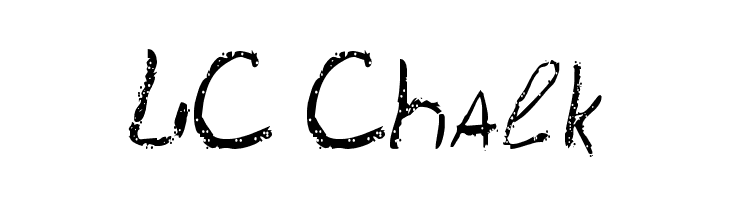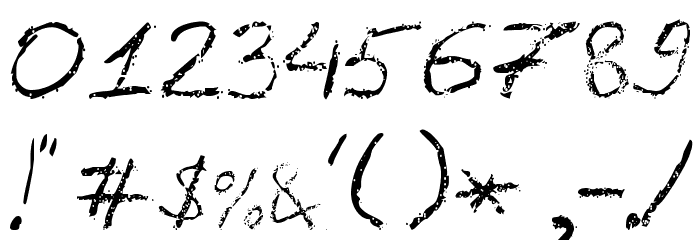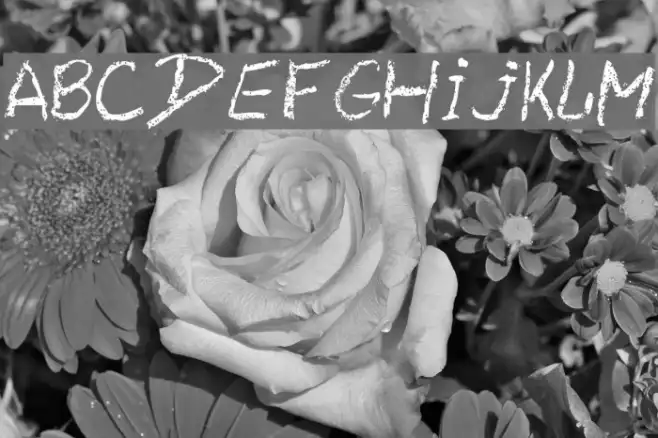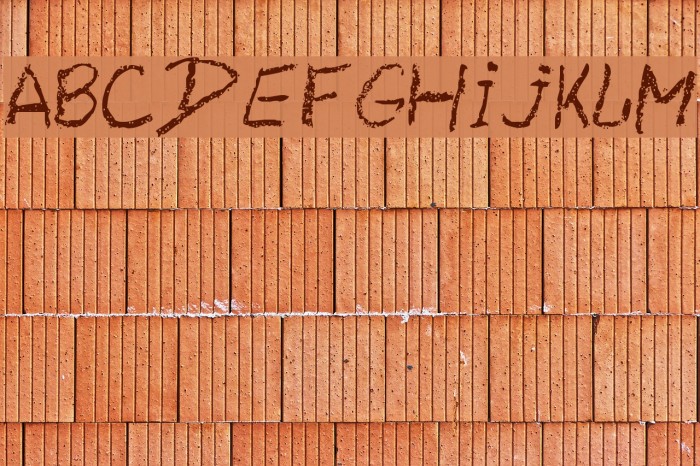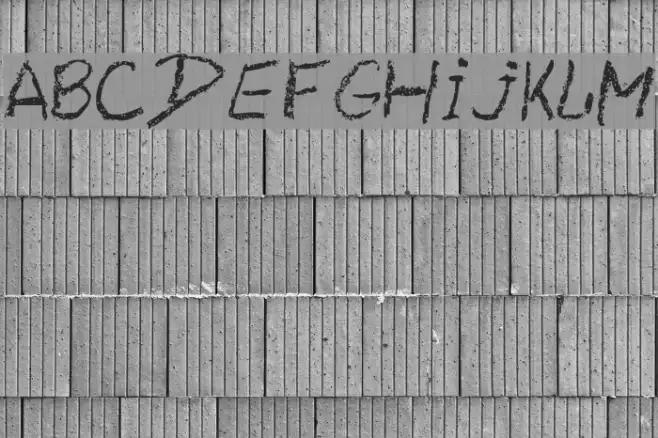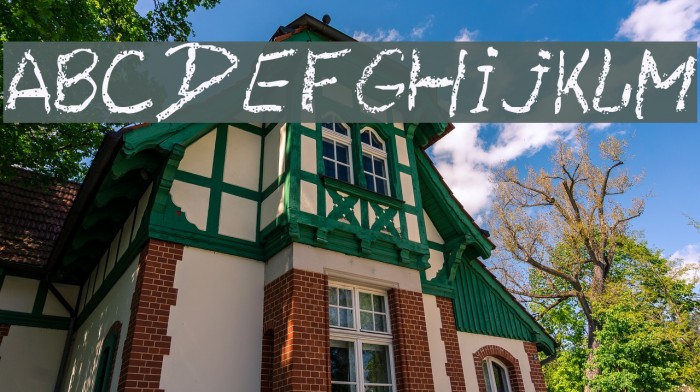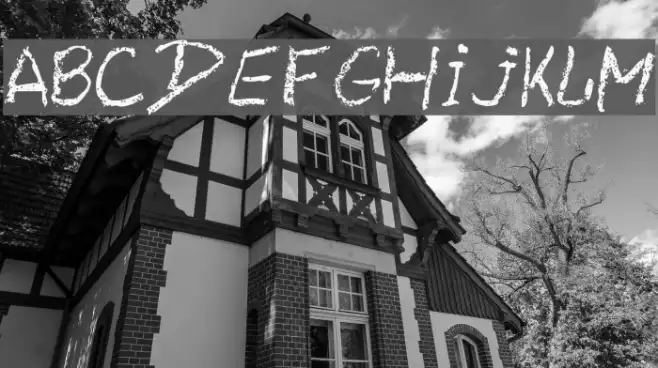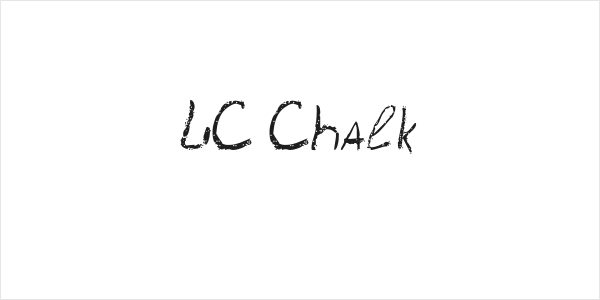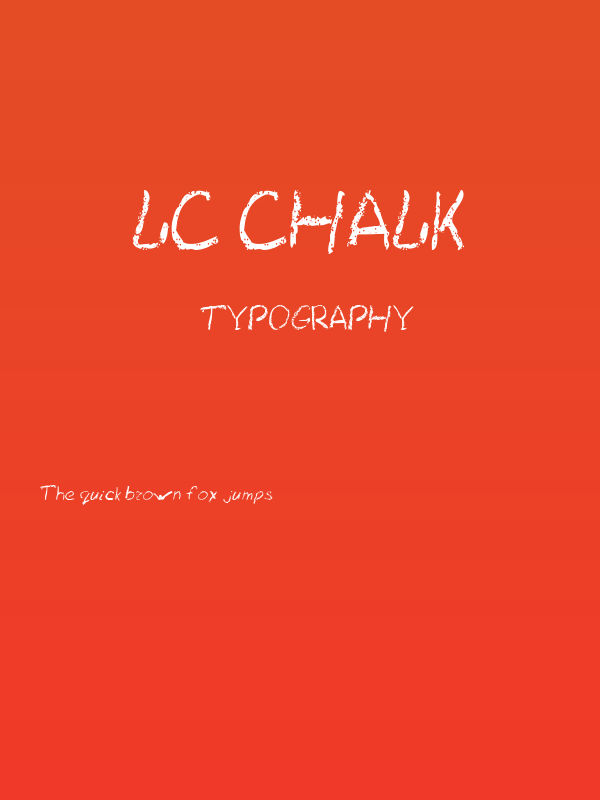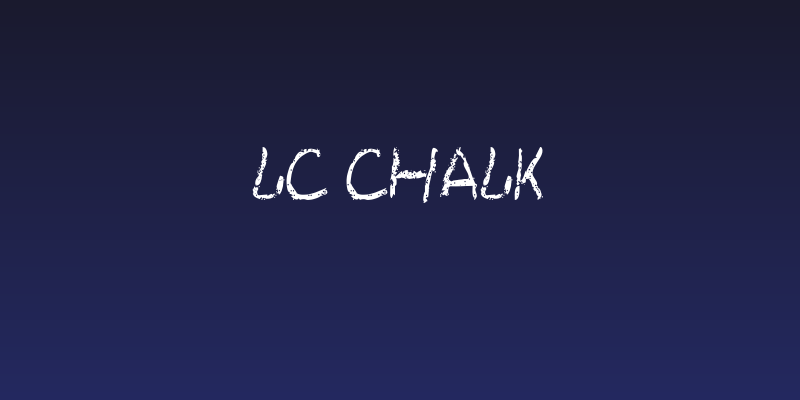
LC Chalk Font
LC Chalk Description
This font features a textured, hand-drawn style reminiscent of chalk writing on a blackboard. The letters are irregular and slightly rough around the edges, giving them a casual and informal appearance. The uppercase and lowercase letters maintain a consistent style, with a playful and artistic flair. Numbers and special characters follow the same aesthetic, ensuring a cohesive look across all text. The font's unique texture and organic feel make it stand out, adding a touch of creativity and spontaneity to any design.